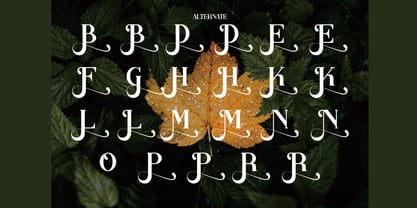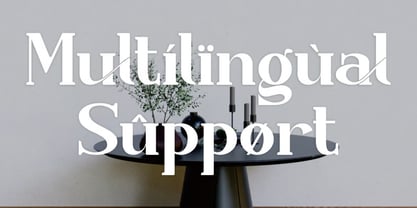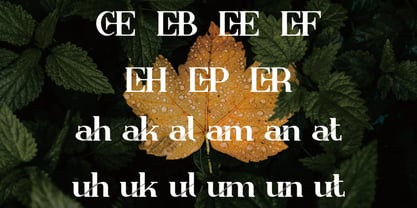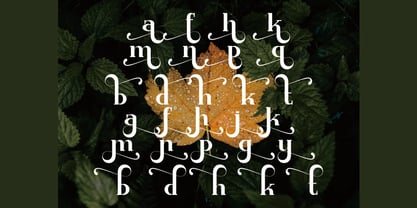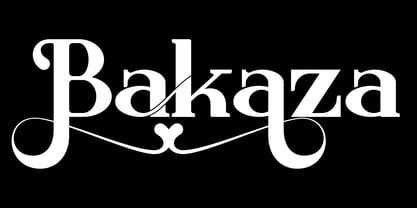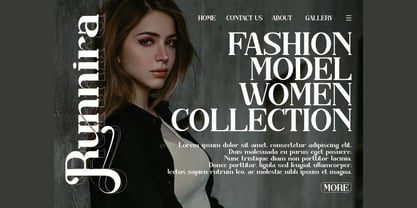
Bakaza
by Hasnat Studio
The Bakaza Font Family was designed by Hasnat Khan and published by Hasnat Studio. Bakaza contains 1 styles. More about this family
Bakaza is a modern and elegant serif typeface that seamlessly blends timeless sophistication with a contemporary design aesthetic. With its graceful curves, subtle contrasts, and stylish ligatures, this typeface infuses a touch of luxury and refinement into any creative project. Designed for versatility and visual impact, Bakaza is perfect for branding, fashion editorials, wedding invitations, luxury packaging, social media posts, and high-end advertising. Each letterform exudes artistic charm and exclusive craftsmanship, making it an ideal choice for designers who appreciate detail and balance. Bakaza offers complete flexibility across both digital and print media. From bold headlines to delicate body text, this serif font enhances every composition with premium quality and timeless appeal. ✦ Font Features: Uppercase & Lowercase Letters, Alternates & Ligatures for creative versatility, Numbers & Punctuation, Multilingual Support. ✦ Perfect For: Elegant Branding & Visual Identities, Fashion & Lifestyle Logos, Editorial & Magazine Design, Wedding Invitations & Stationery, Luxury Packaging & Product Labels, Social Media Templates & Advertisements. Bring your brand to life with Bakaza — a modern serif font crafted for luxury, style, and timeless sophistication in every design.